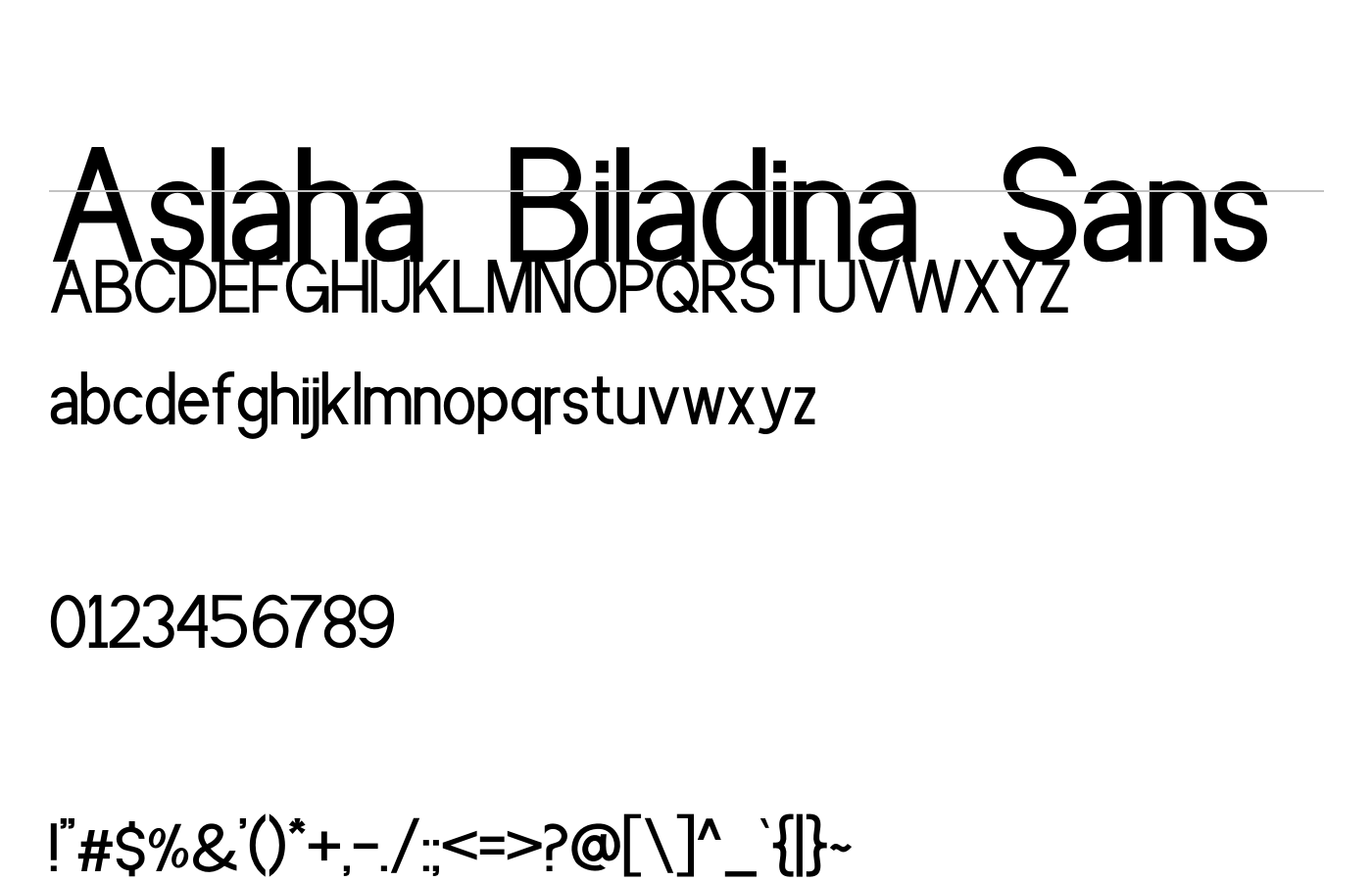
Aslaha Biladina Sans is a clean, modern sans-serif font characterized by its tall, narrow letterforms and consistent stroke weight, creating a sleek and professional appearance. Its high x-height and simple, geometric shapes ensure excellent readability, making it ideal for contemporary branding, editorial headlines, and digital interfaces where clarity and sophistication are essential. This font's minimalistic style conveys a modern, elegant vibe suitable for businesses and projects seeking a fresh and polished look.
Aslaha Biladina Sans Font
About Aslaha Biladina Sans Font